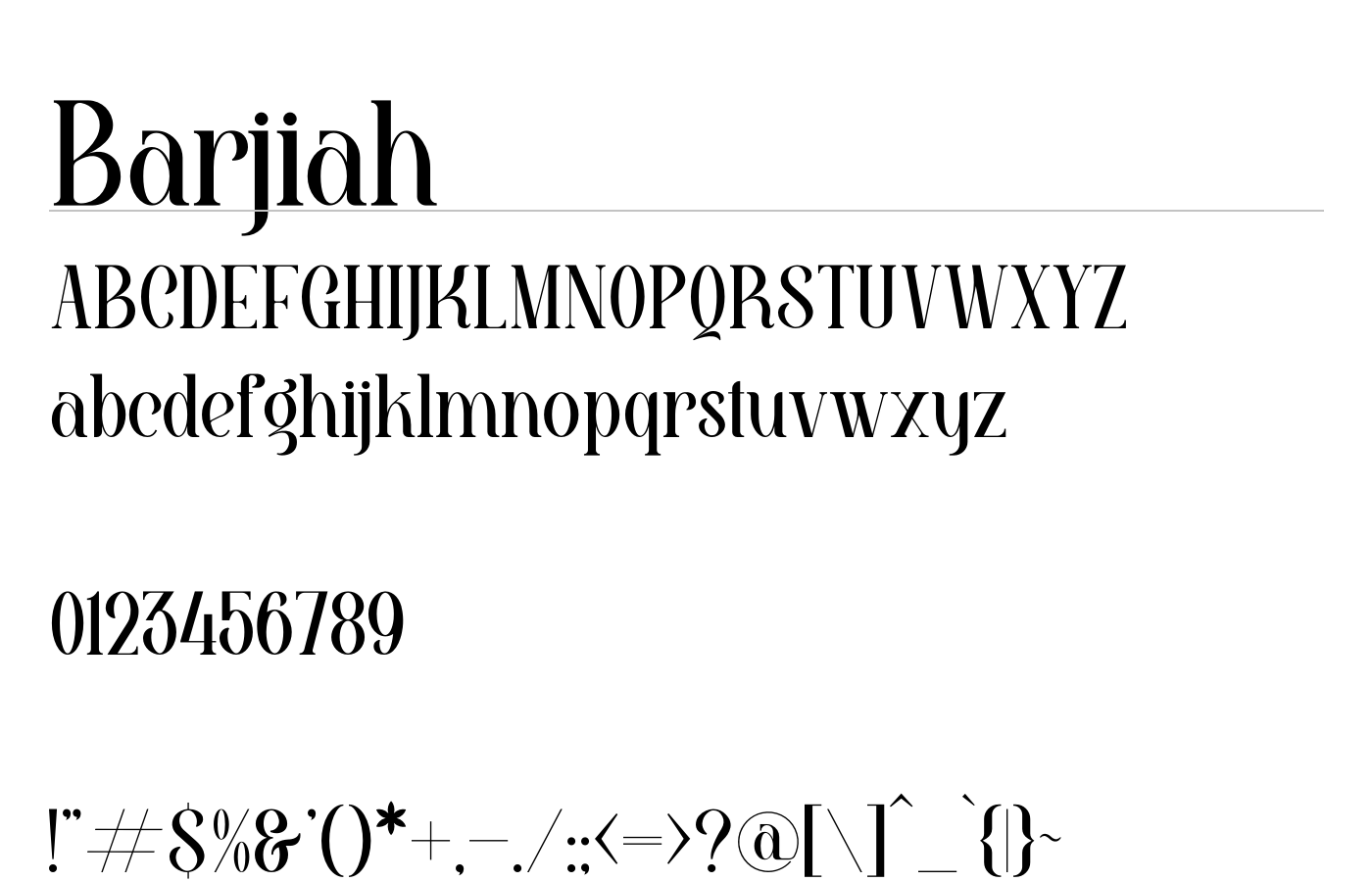
Barjiah is a sophisticated serif font featuring a modern, high-contrast style with elegant, slender letterforms and distinctively curved terminals. Its narrow width and refined details give it a stylish, luxurious feel, making it perfect for upscale branding, editorial headlines, and fashion-related design where a touch of class and uniqueness is desired.
Barjiah Font
About Barjiah Font